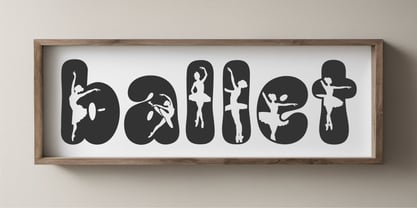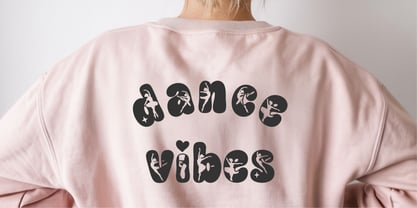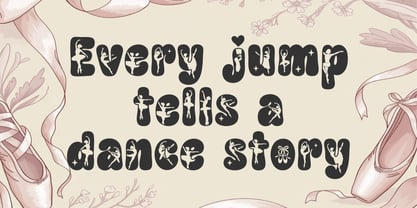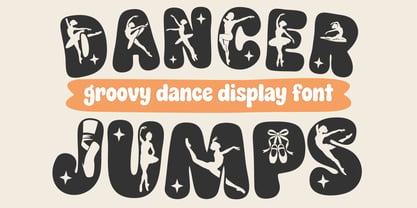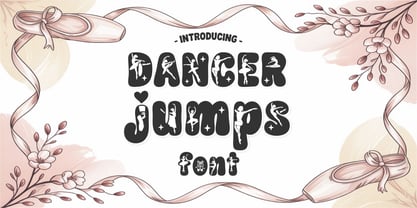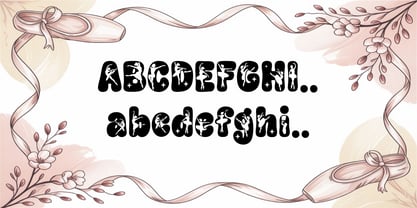
Dancer Jumps
by Tonis Art Studio
The Dancer Jumps Font Family was designed by Tony Balios and published by Tonis Art Studio. Dancer Jumps contains 1 styles. More about this family
Dancer Jumps is a playful and energetic dance font inspired by ballet movement and joyful jumps. Featuring bold, rounded groovy letters filled with elegant dancer silhouettes, this font brings motion, rhythm, and happiness to every word. Perfect for dance quotes, ballet signs, kids room decor, name signs, t-shirts, wall art, stickers, and creative craft projects. Designed for smooth cutting and clear readability, Dancer Jumps works beautifully with Cricut and Silhouette and is ideal for dance studios, recitals, and cheerful dance-themed creations. Digital download.
Designers: Tony Balios
Foundry: Tonis Art Studio